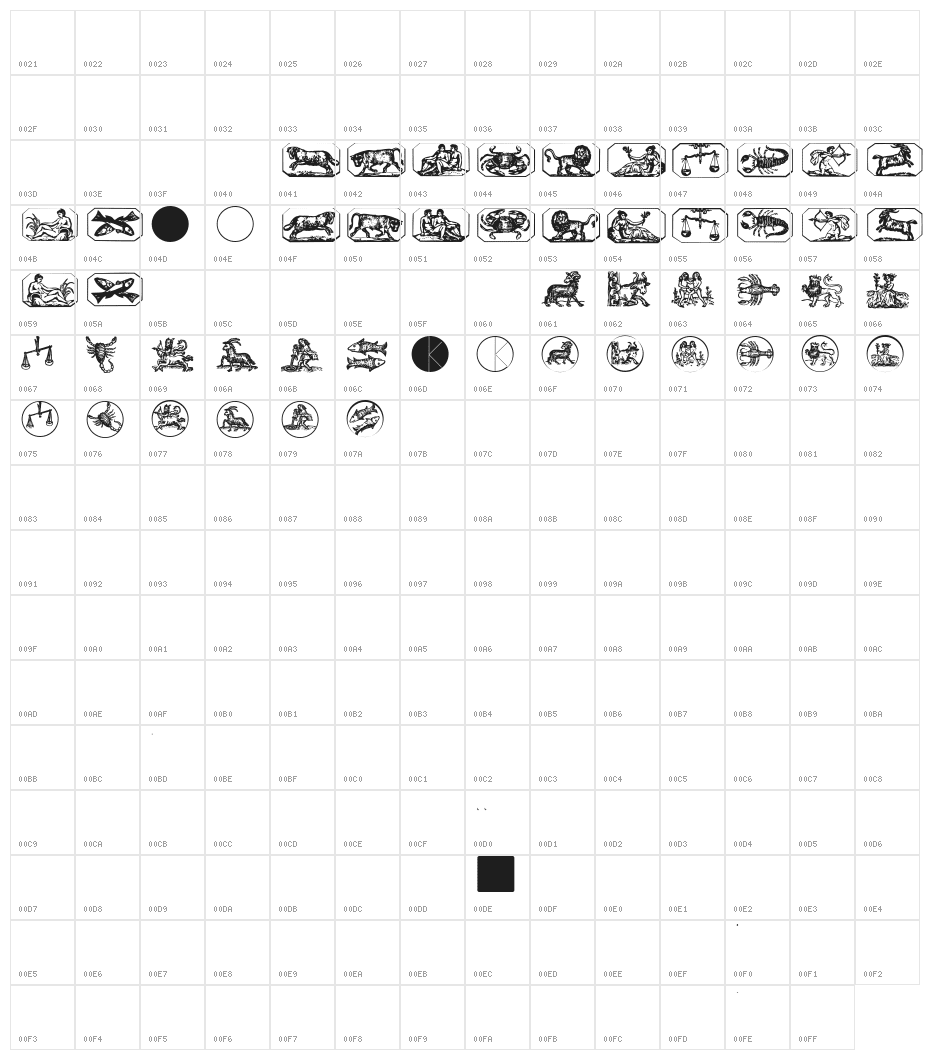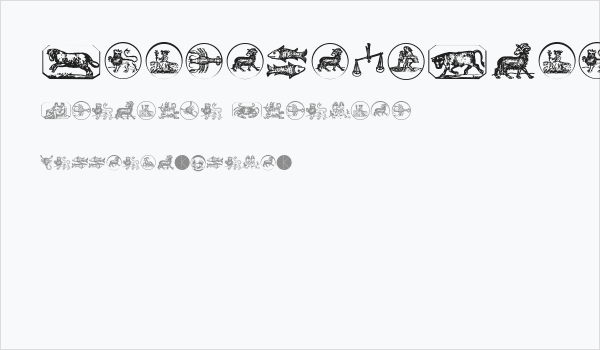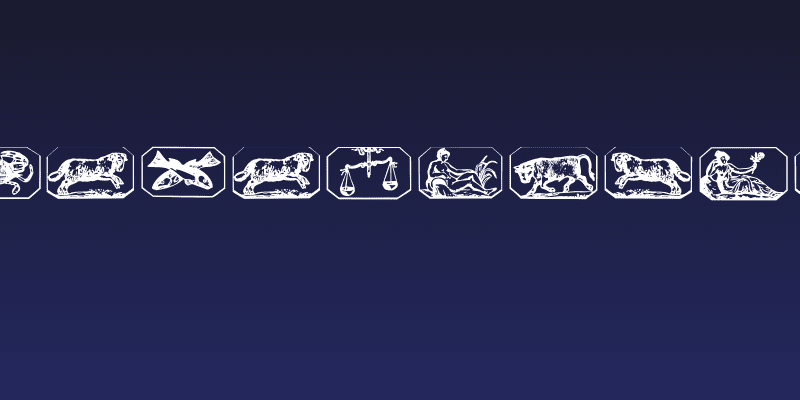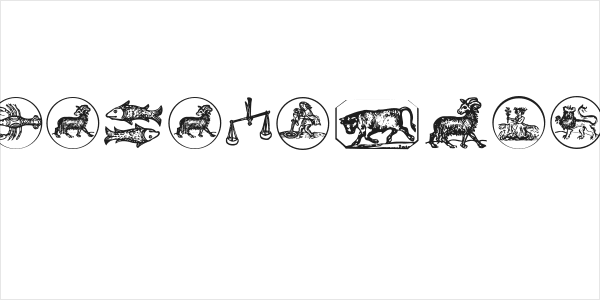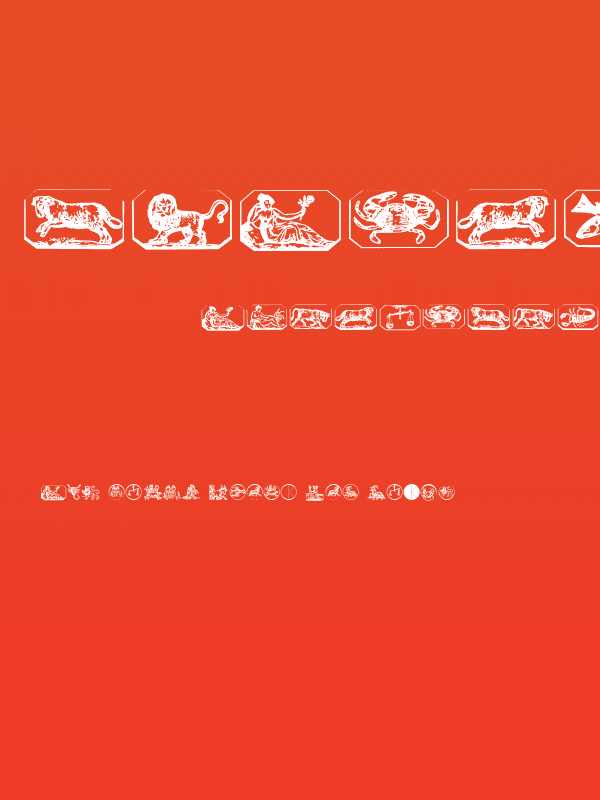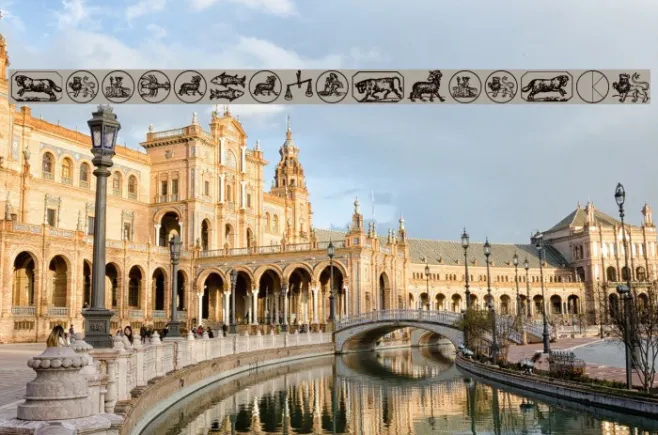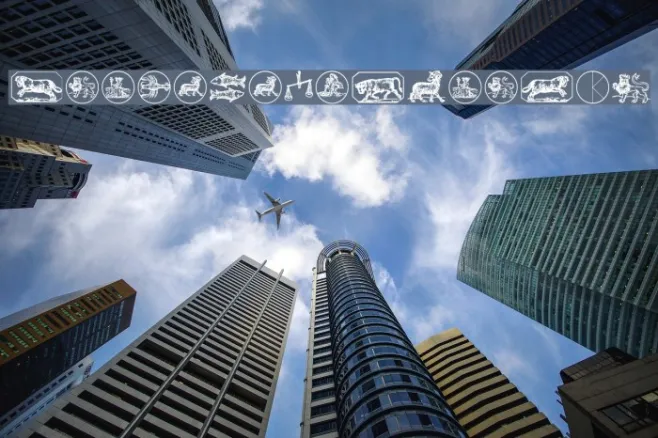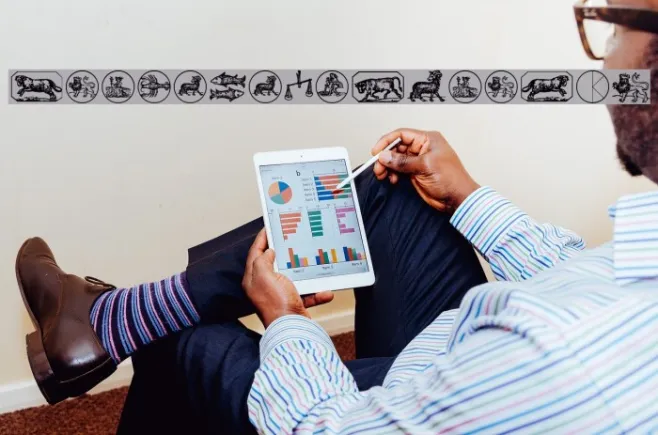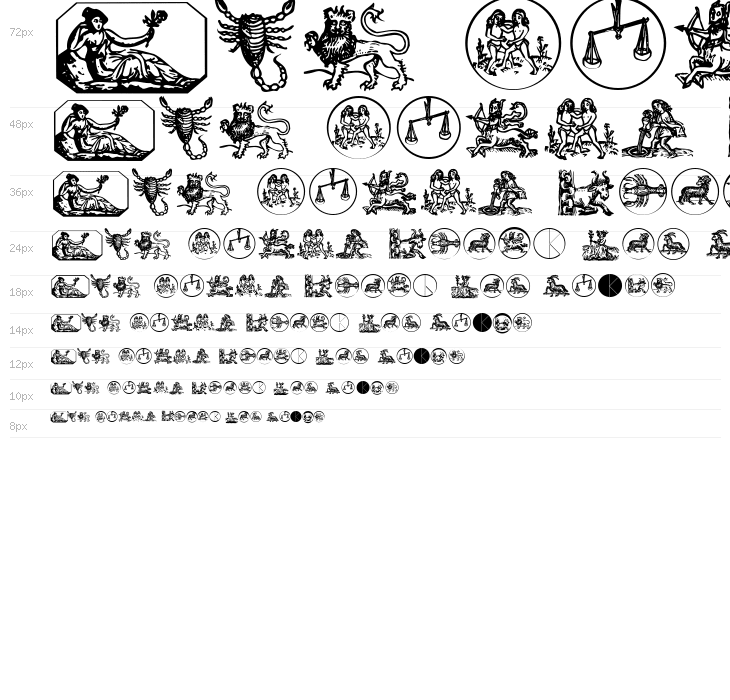
AstrologyBatsOne Font
AstrologyBatsOne Description
This font features a series of intricate and detailed illustrations representing the twelve zodiac signs. Each symbol is enclosed within a unique shape, adding a decorative and mystical element to the design. The symbols are highly stylized, with elaborate line work that gives them a vintage and ornate appearance. The font does not include traditional alphabetic or numeric characters, focusing solely on these astrological symbols. The overall style is decorative and thematic, making it suitable for projects that require a touch of astrology or mysticism.
| Overall Style | Vintage, Decorative |
| Use Case | Logos, Decorative elements, Themed event materials |
| Proposed Projects | Ideal for astrology-themed projects, mystical event invitations, or decorative elements in publications related to horoscopes. |